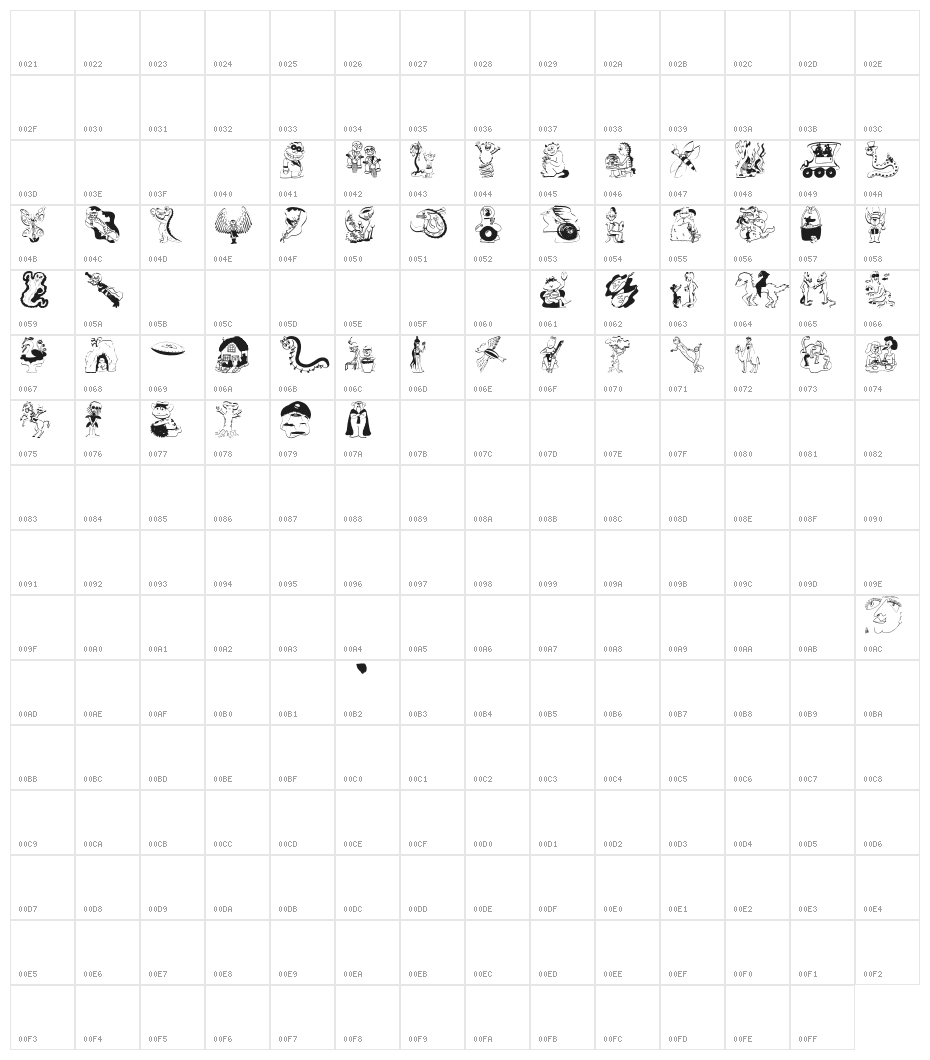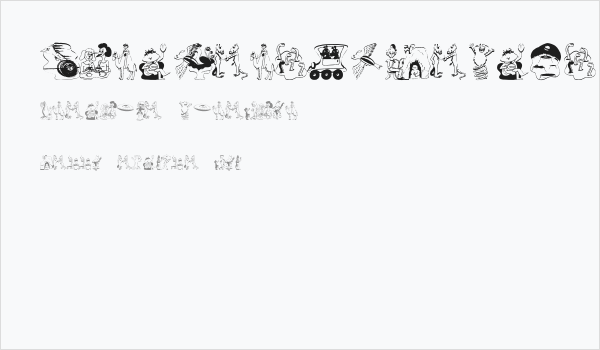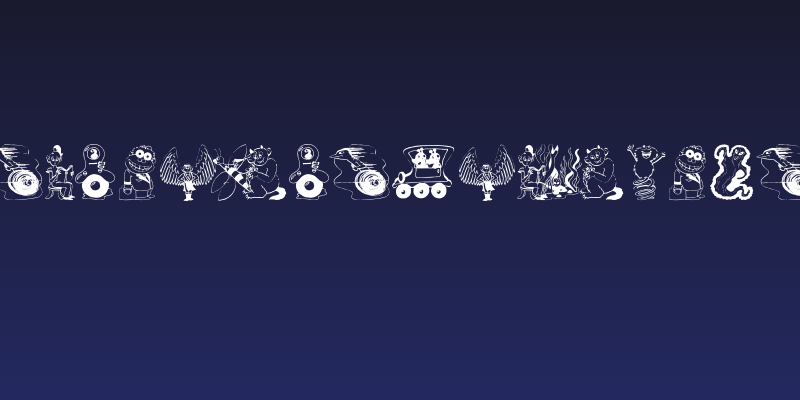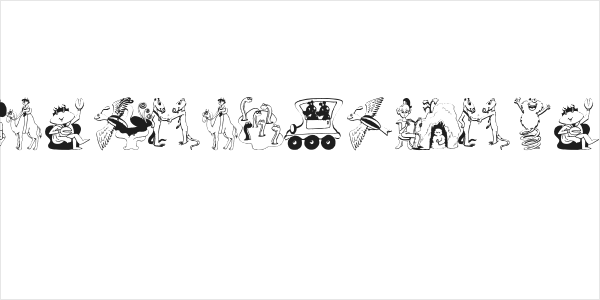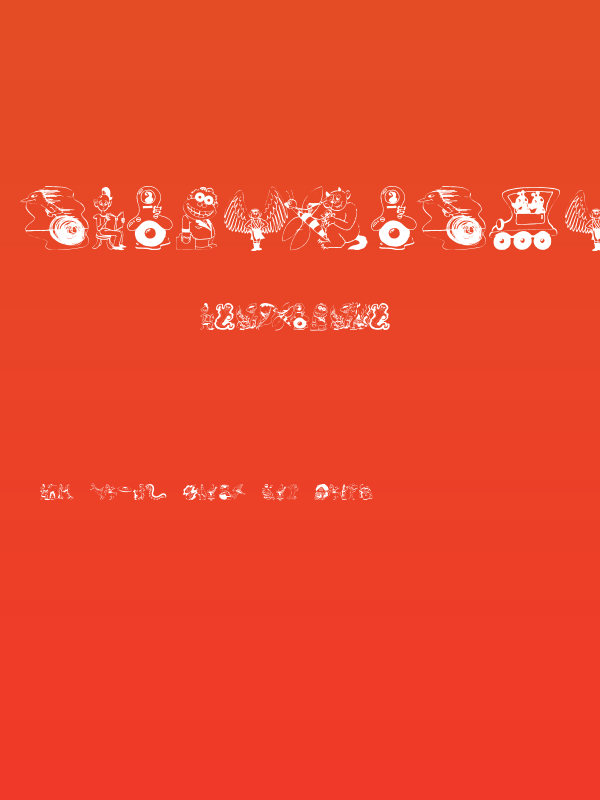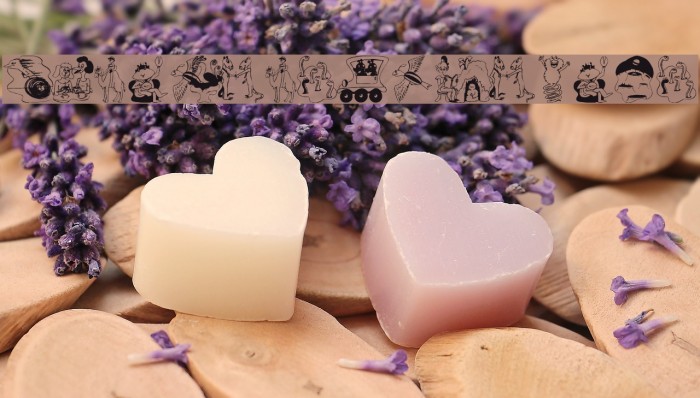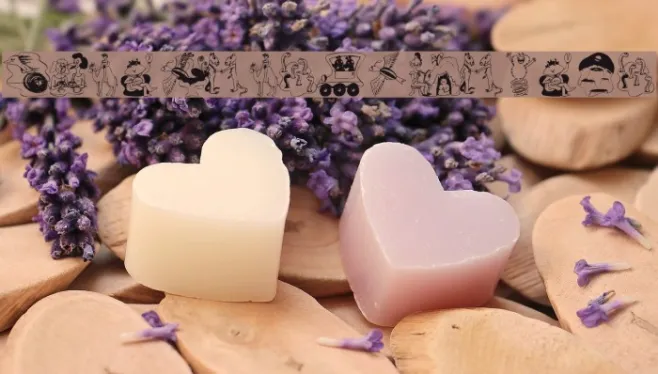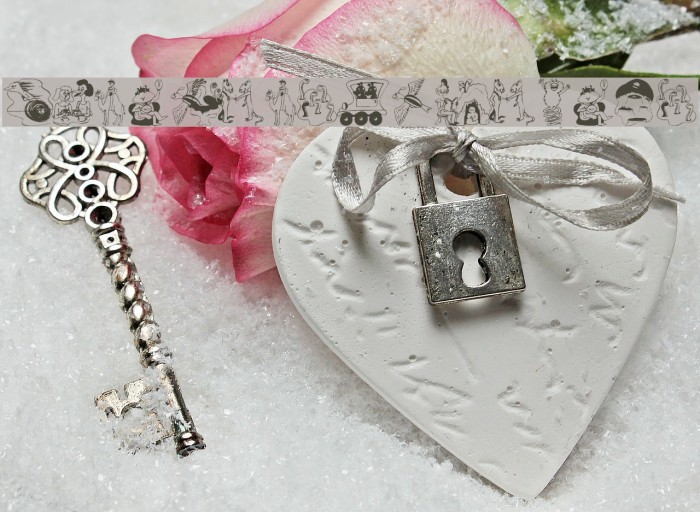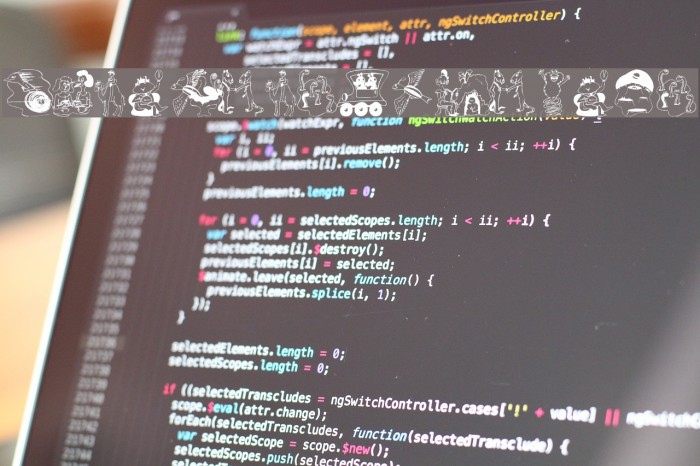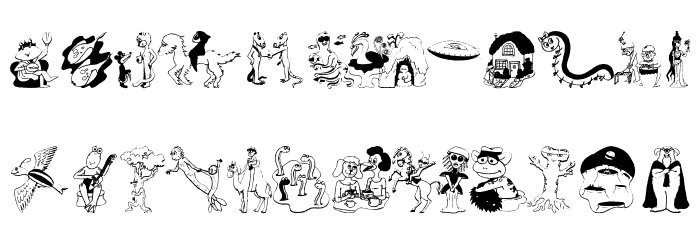
StrangersInTheDays Font
StrangersInTheDays Description
A highly decorative and whimsical font where each character is illustrated as a unique cartoon or surreal figure, blending playful and imaginative elements with detailed line art.
| Overall Style | Whimsical, Playful, Artistic |
| Use Case | Logos, Posters, Headlines, Creative Projects |
| Proposed Projects | Children’s books, posters, party invitations, comic titles, creative branding. |